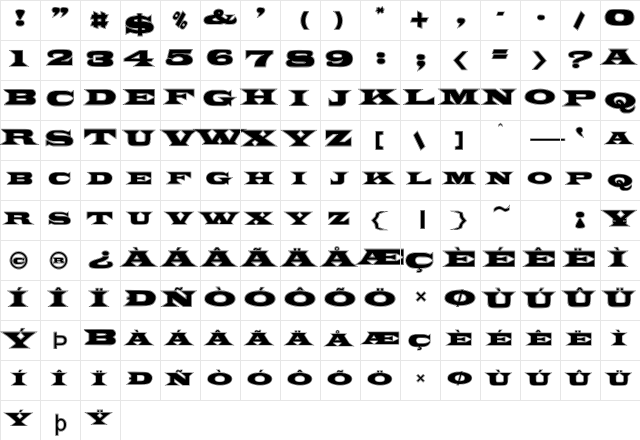
FZ JAZZY 26 CONTOUR Normal Font Preview
FZ JAZZY 26 CONTOUR Normal
Design Context for FZ JAZZY 26 CONTOUR Typeface
FZ JAZZY 26 CONTOUR offers clean, dependable letterforms without strong stylistic allegiance, making it a practical choice for designers who need flexibility.